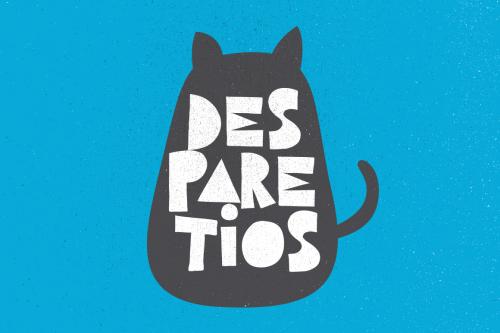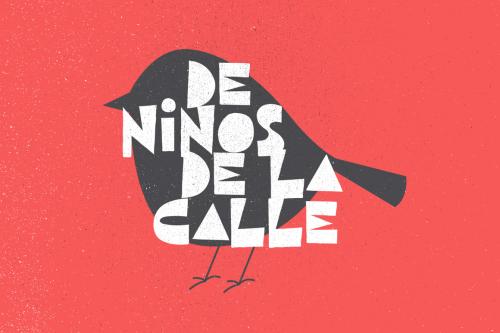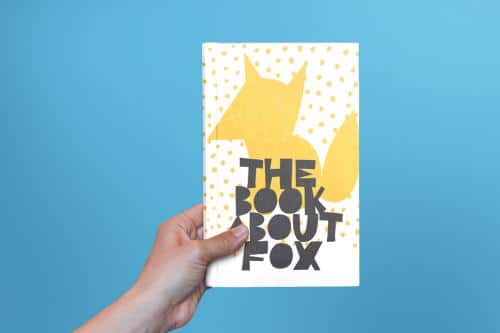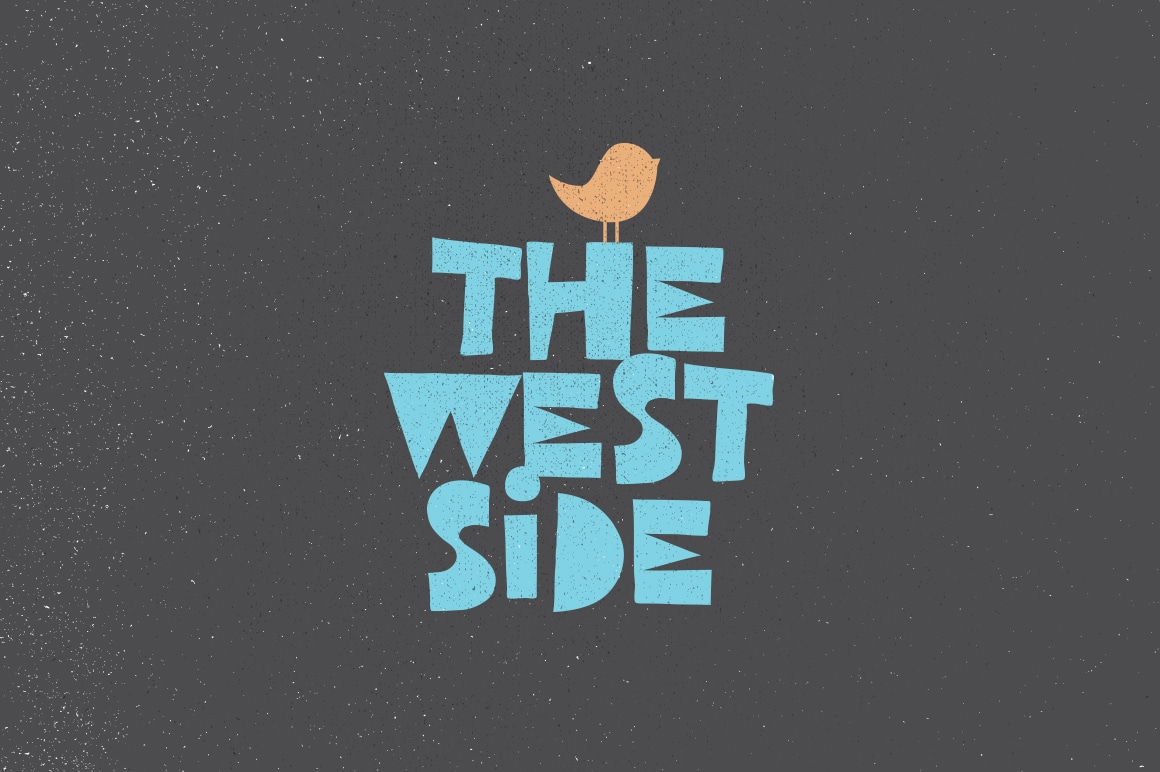
West Side was designed by Artimasa Studio, and shared by Pixelo. Inspired by 1980s handmade poster designs and illustrations, here we present to you a block-styled handcrafted typeface called West Side. West Side typeface can be used to quickly give a retro feeling in your design.